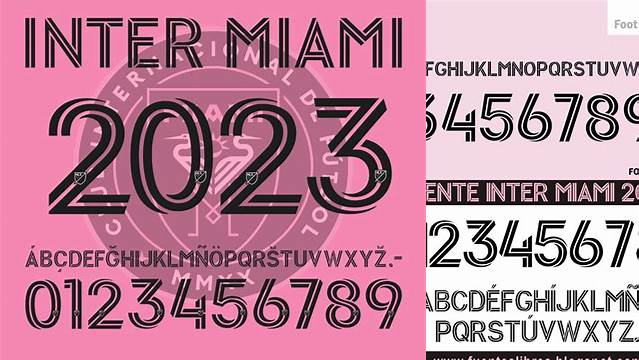
Are you a die-hard Inter Miami FC fan looking to show your support in every way possible? Or maybe you're a designer working on a project that needs that authentic Inter Miami flair? Either way, the official Inter Miami FC font is a key element to capturing the team's unique identity. Finding the right font can be crucial for creating everything from stunning graphics and social media posts to personalized merchandise and even fan-made content. In this comprehensive guide, we will dive deep into the world of Inter Miami FC fonts, exploring where you can find them, how to download them for free, and how to use them effectively in your projects. We'll also address some common questions and concerns fans and designers have about licensing and usage rights, ensuring you can confidently express your passion for the Herons. This journey into the typographic heart of Inter Miami FC will equip you with the knowledge and resources to make your creations truly stand out, reflecting the team's vibrant spirit and unmistakable style. From understanding the nuances of the official font to discovering creative ways to incorporate it into your work, you'll be well-prepared to enhance your projects with the authentic Inter Miami FC touch. So, let's get started and explore the exciting world of Inter Miami FC fonts!
What is the Inter Miami FC Font?
The Inter Miami FC font is more than just a typeface; it's a visual representation of the club's brand identity. This distinctive font embodies the team's spirit, its connection to Miami's vibrant culture, and its ambition on the soccer field. It is a carefully chosen design element that helps to create a cohesive and recognizable brand image across all platforms, from official merchandise and team communications to digital media and fan-created content. The font's characteristics, such as its boldness, elegance, or modernity, reflect the values and aspirations of Inter Miami FC. Think about how a specific font can evoke feelings – the Inter Miami FC font likely aims to project strength, sophistication, and a touch of Miami's unique flair. Understanding the specific design elements of the font, such as its serifs (the small decorative strokes at the end of letters) or its overall shape and weight, can help you appreciate its role in the club's branding. The official font isn't just used for the team's name and logo; it extends to player names on jerseys, website text, marketing materials, and various other applications. This consistent use of the font helps to build brand recognition and ensures that the Inter Miami FC identity remains strong and unified. For fans, using the official font in their own creations is a way to connect with the team on a deeper level, expressing their loyalty and passion through visually consistent messaging. Whether you're designing a banner for a game, creating a social media graphic, or simply want to add a touch of Inter Miami FC to your personal projects, understanding and utilizing the official font is a powerful way to show your support. So, what makes this font so special? Let's dive deeper into its characteristics and significance.